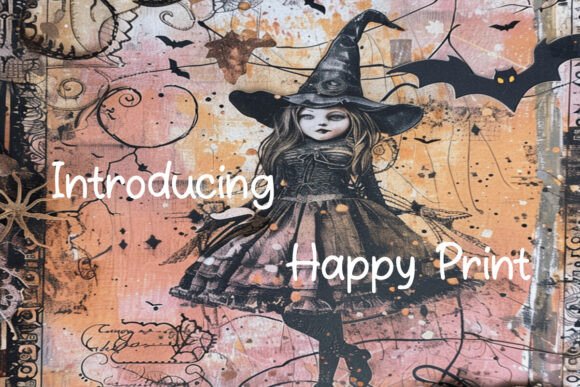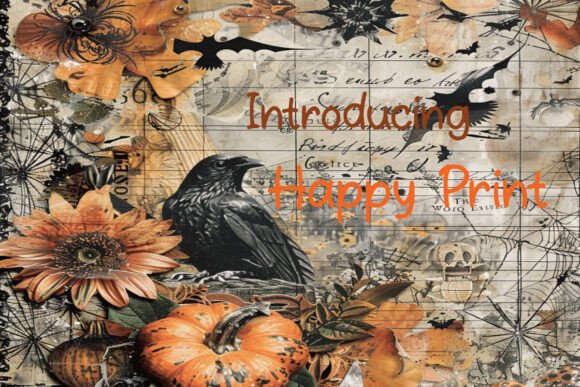
Introducing Happy Print Font: The Joyful Essence of Design
Are you looking for a font that can add a touch of charm and personality to your designs? Look no further than Happy Print Font! This versatile font is perfect for a wide range of design projects, from adorning t-shirts and stickers to creating stunning branding elements, magazines, and greeting cards.
The Distinct Style of Happy Print
Happy Print Font boasts a unique and distinct style that sets it apart from other fonts. Its playful and joyful essence makes it a delightful choice for designers who want to add a touch of whimsy to their work. Whether you’re creating designs for personal use or for clients, Happy Print is sure to bring a smile to your audience’s faces.
One of the best things about Happy Print Font is its versatility. It’s perfect for a wide range of design projects, including:
- T-shirts and apparel: Add a touch of personality to your t-shirt designs with Happy Print Font. Its playful style is sure to make your designs stand out.
- Stickers and labels: Create fun and colorful stickers and labels with Happy Print Font. Its distinct style makes it perfect for adding a touch of whimsy to your designs.
- Branding elements: Use Happy Print Font to create unique and memorable branding elements, such as logos and business cards.
- Magazines and greeting cards: Add a touch of charm to your magazine and greeting card designs with Happy Print Font. Its playful style is sure to delight your readers.
Creating Stunning SVG Files and Cricut Projects
Happy Print Font is also perfect for creating stunning SVG files and Cricut projects. Its unique style and compatibility with cutting machines make it a great choice for crafters and designers who want to create custom designs and projects.
With Happy Print Font, you can create:
- Custom SVG files: Use Happy Print Font to create custom SVG files that can be used for a wide range of projects, from cutting vinyl to creating intricate designs.
- Cricut projects: Add a touch of personality to your Cricut projects with Happy Print Font. Its playful style is sure to make your projects stand out.
Enhancing Your Social Media Presence
In today’s digital age, having a strong social media presence is crucial for designers and businesses. Happy Print Font can help you enhance your social media presence with its unique and playful style.
Use Happy Print Font to:
- Create eye-catching social media graphics: Add a touch of personality to your social media graphics with Happy Print Font. Its playful style is sure to grab the attention of your audience.
- Develop a consistent brand voice: Use Happy Print Font to develop a consistent brand voice across all your social media platforms. Its unique style is sure to make your brand stand out.
Poster Design and More
Happy Print Font is not just limited to digital designs. It’s also perfect for creating stunning poster designs and other print materials.
Use Happy Print Font to:
- Create eye-catching posters: Add a touch of personality to your poster designs with Happy Print Font. Its playful style is sure to grab the attention of your audience.
- Develop unique print materials: Use Happy Print Font to develop unique print materials, such as brochures, flyers, and business cards.
In conclusion, Happy Print Font is a versatile and playful font that’s perfect for designers and crafters who want to add a touch of charm and personality to their designs. Its unique style and compatibility with various design projects make it a great choice for a wide range of applications.